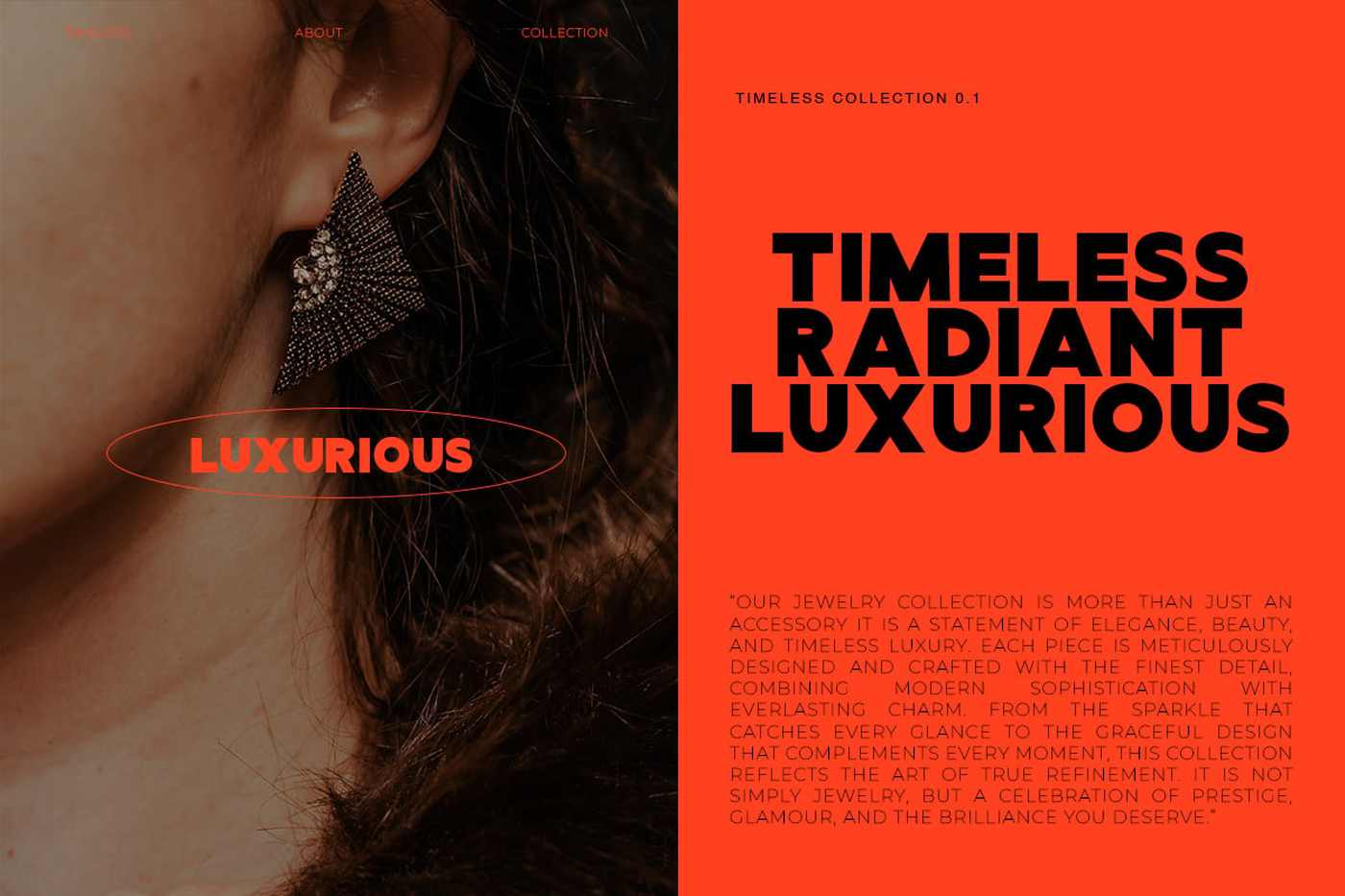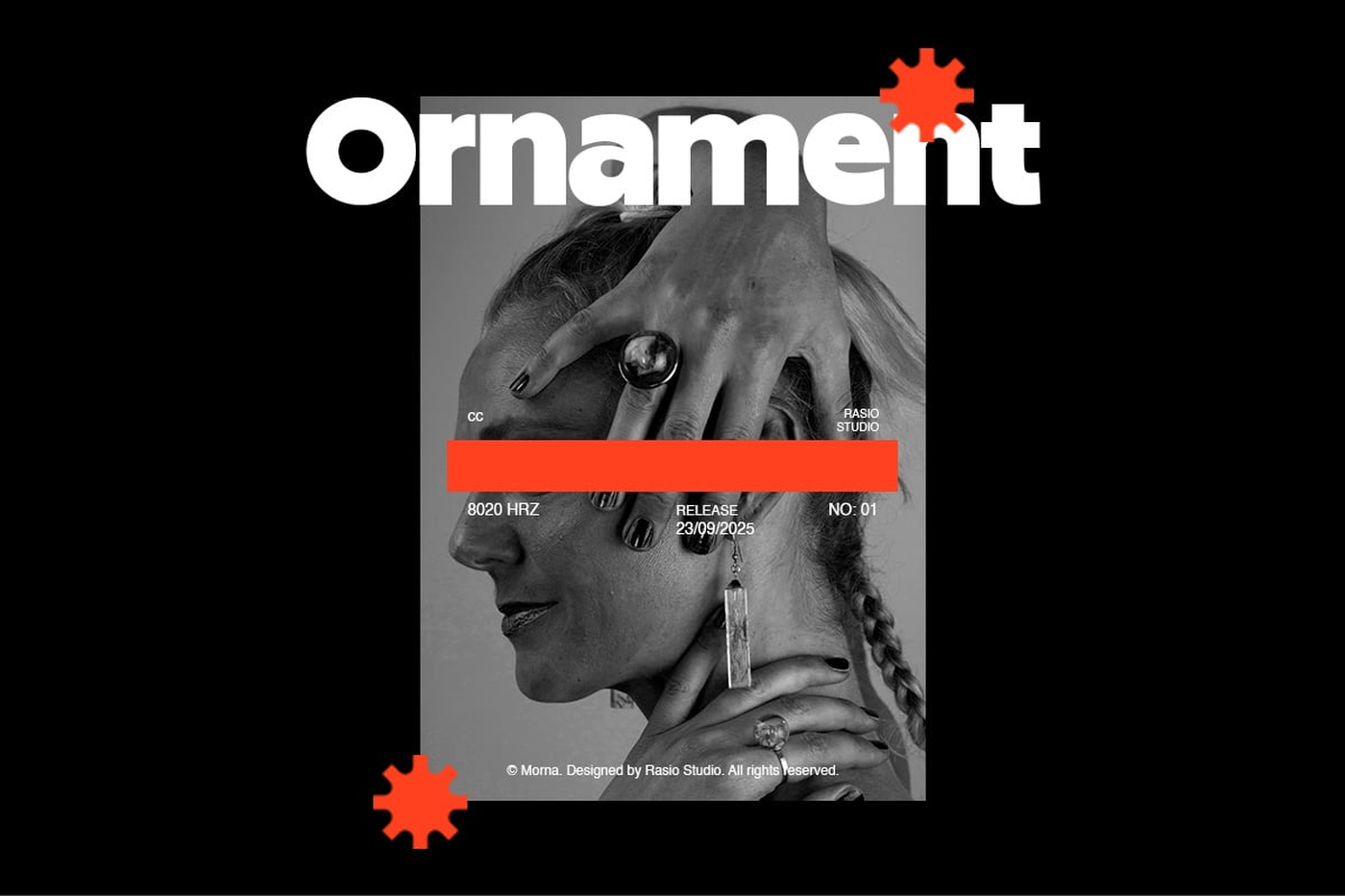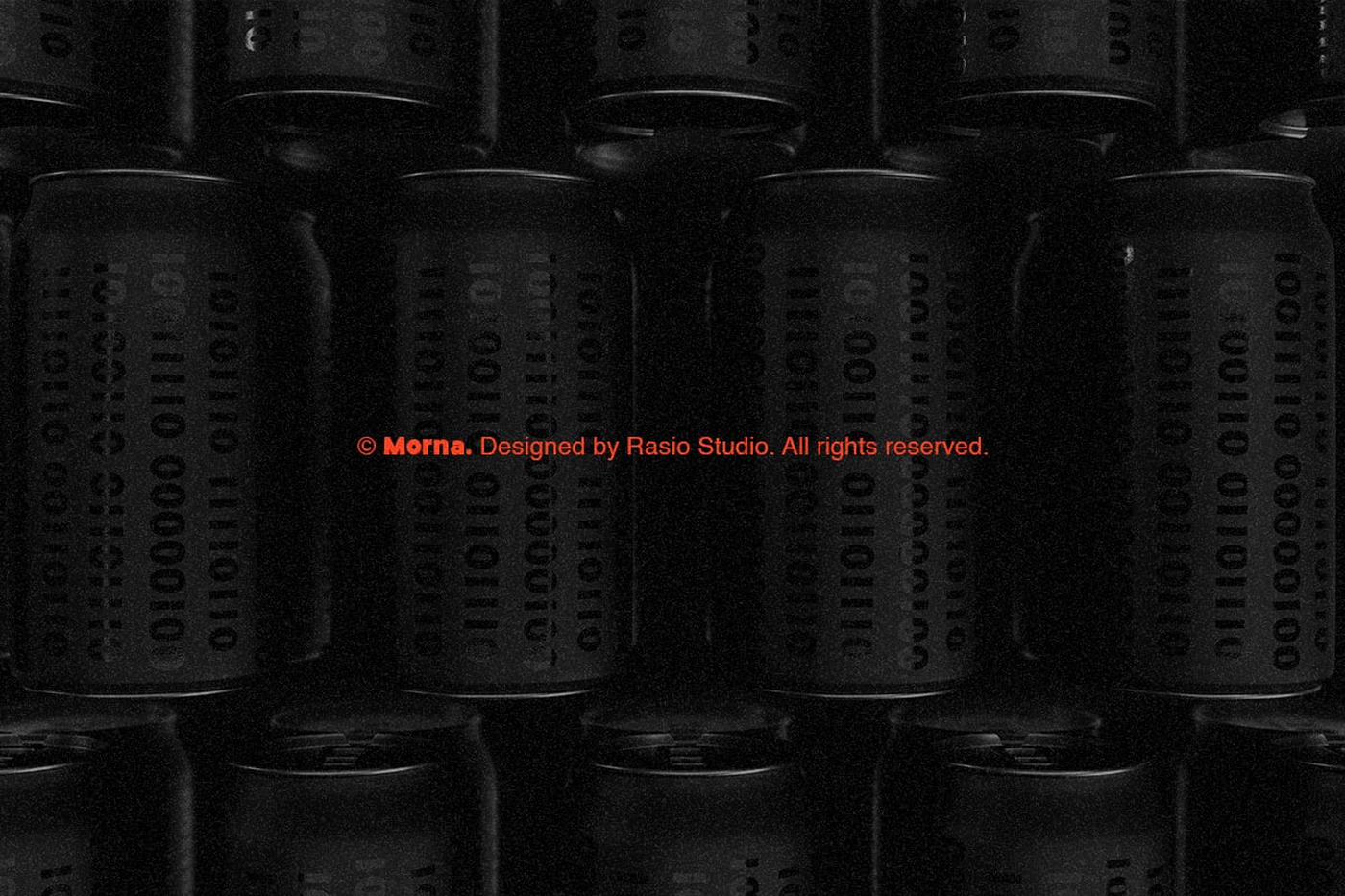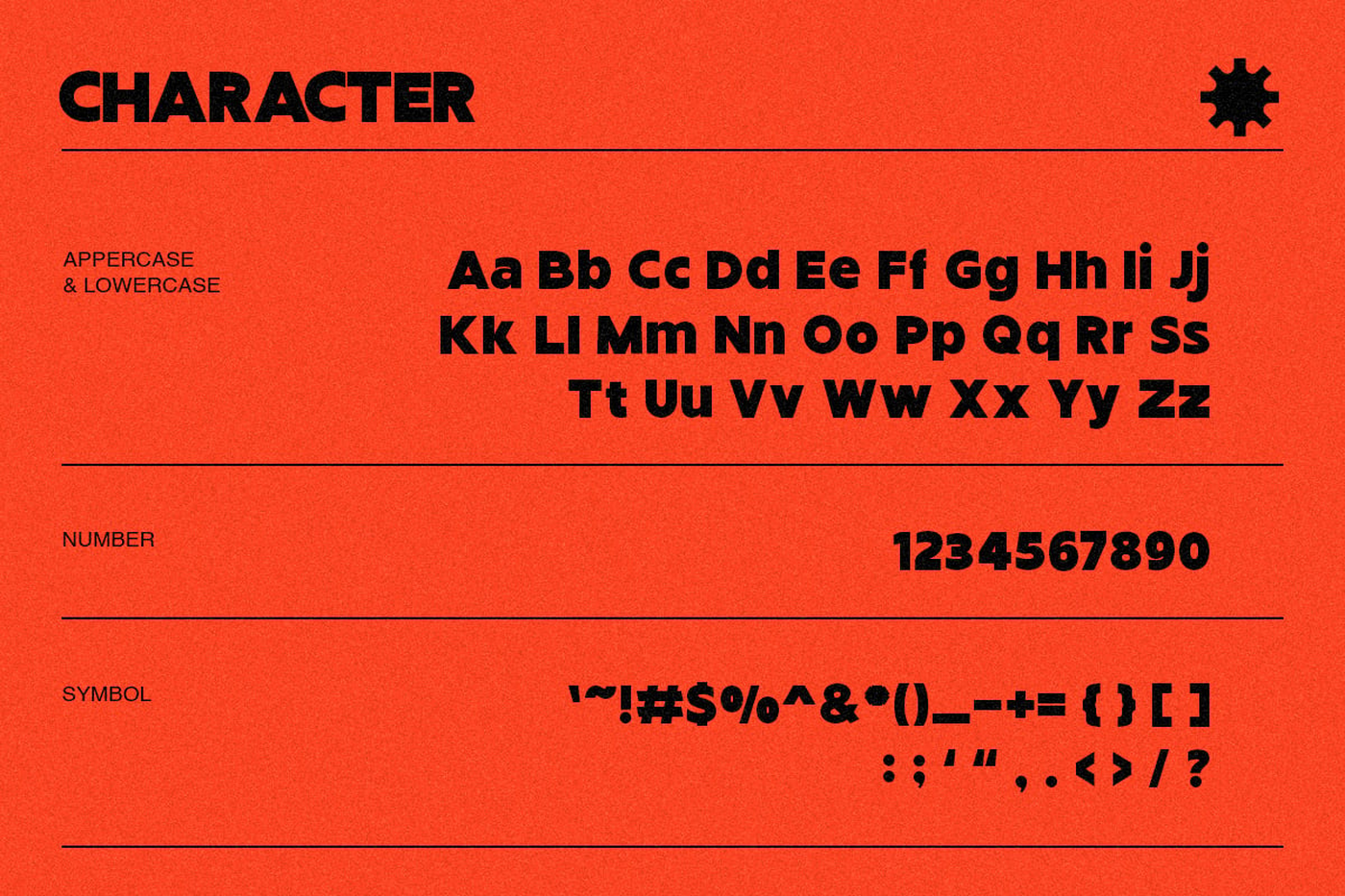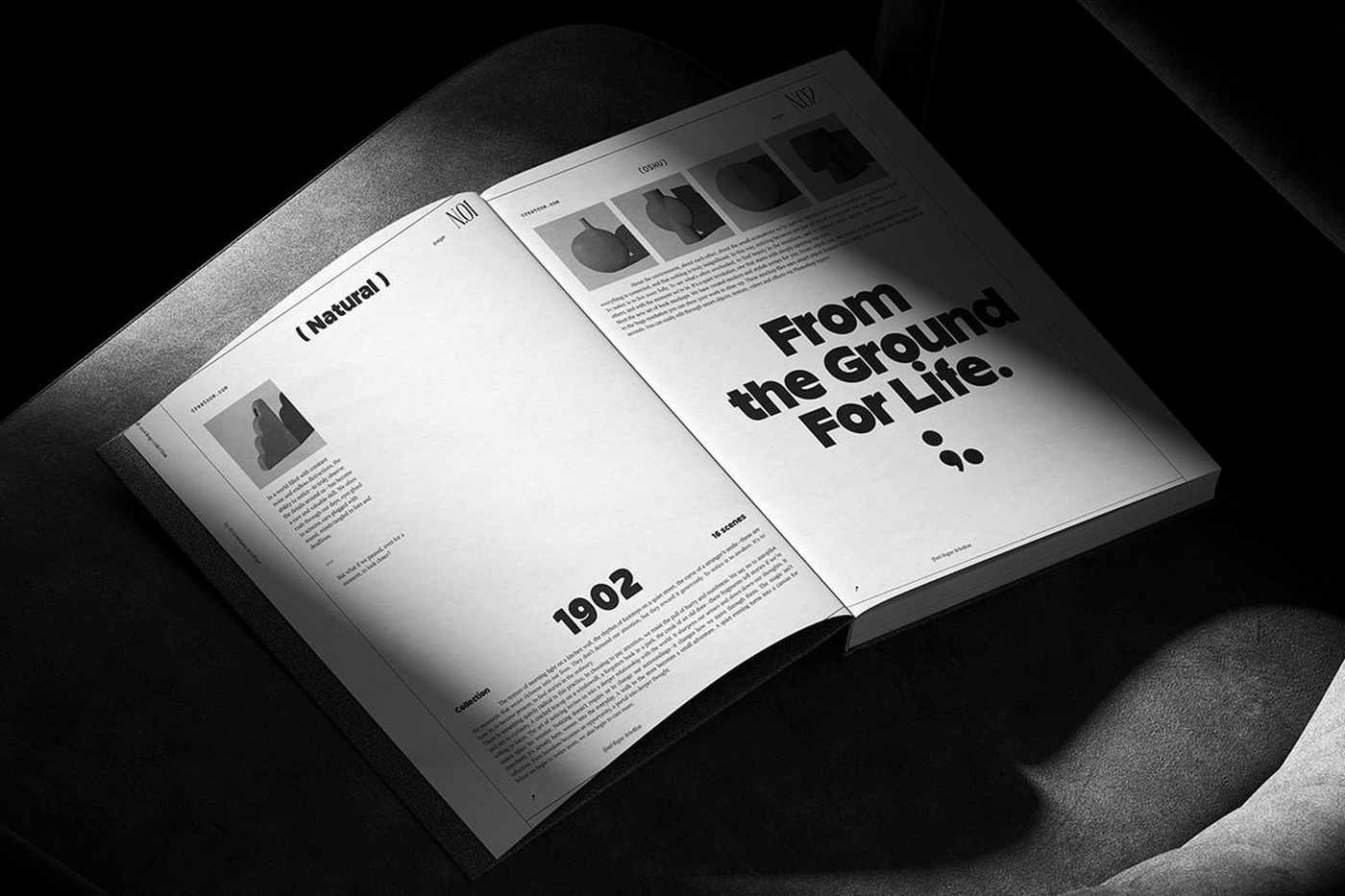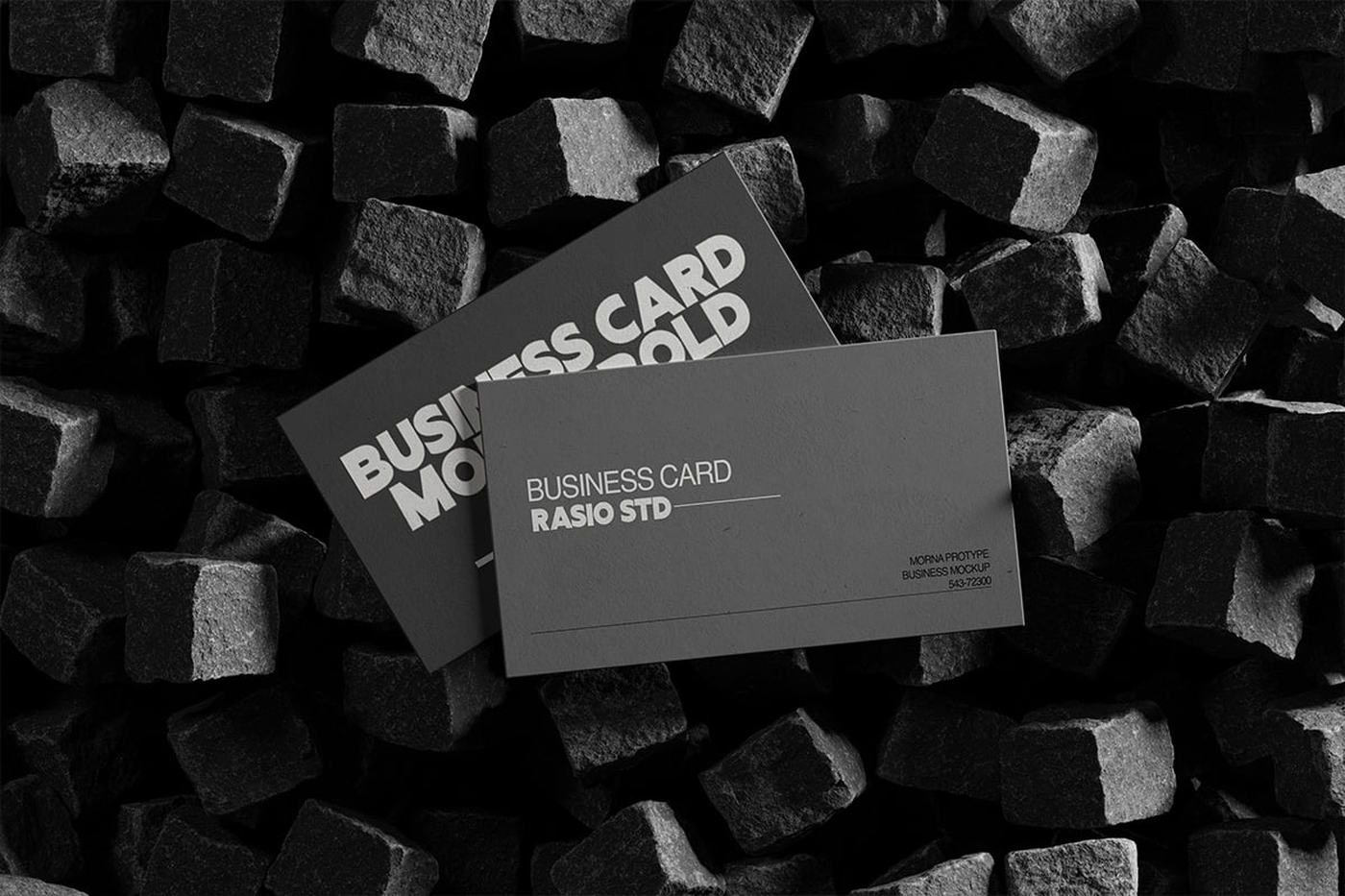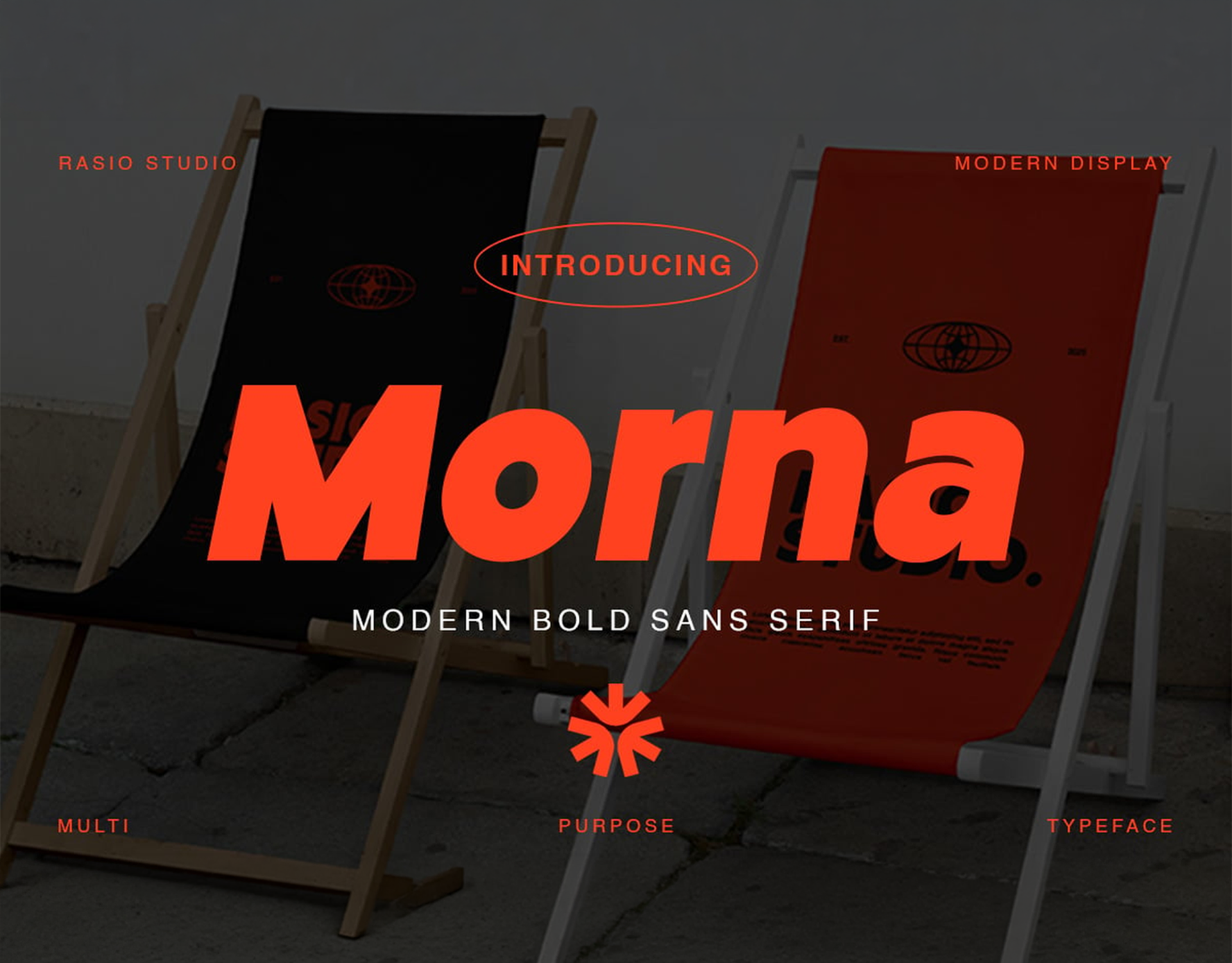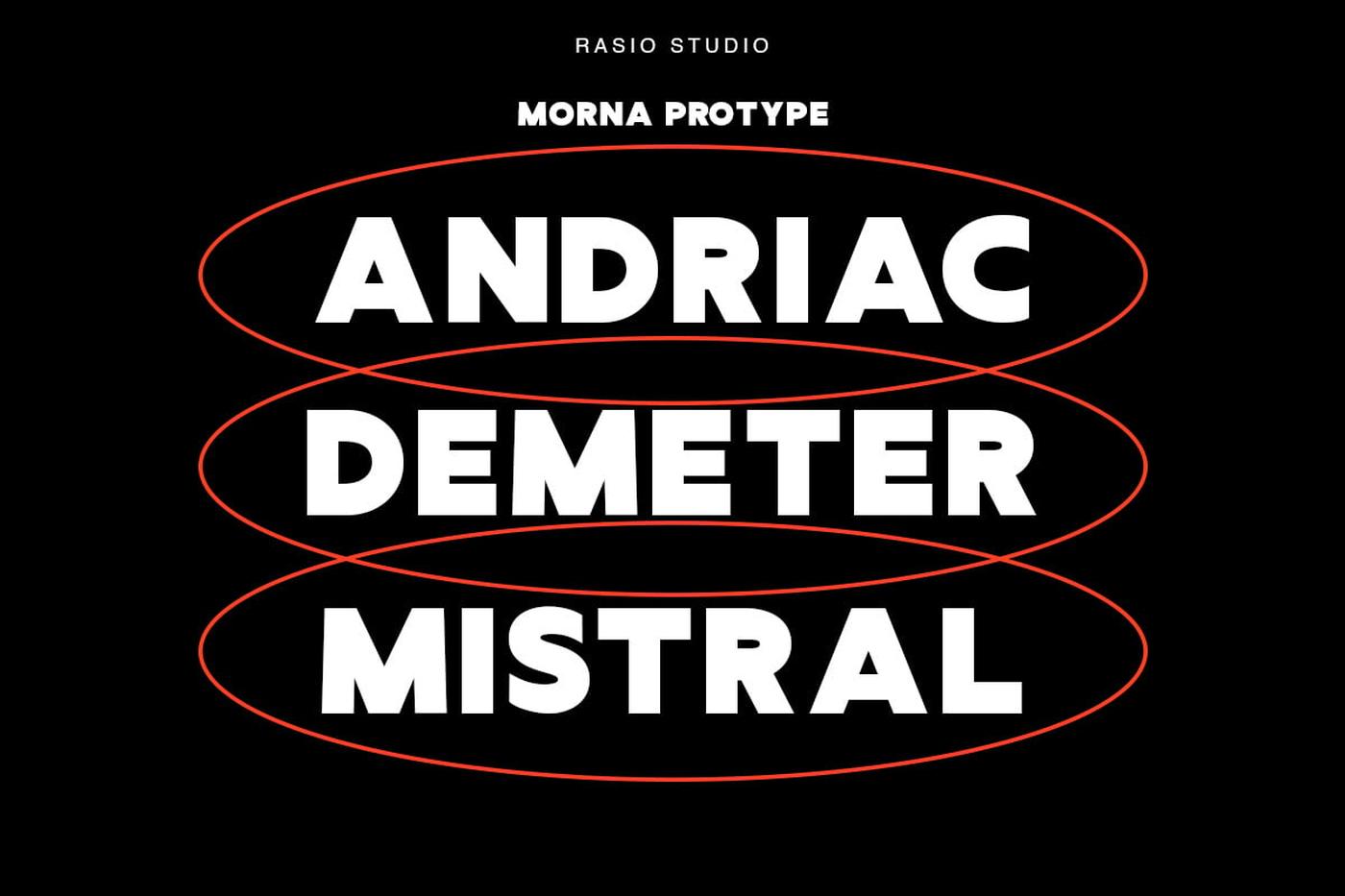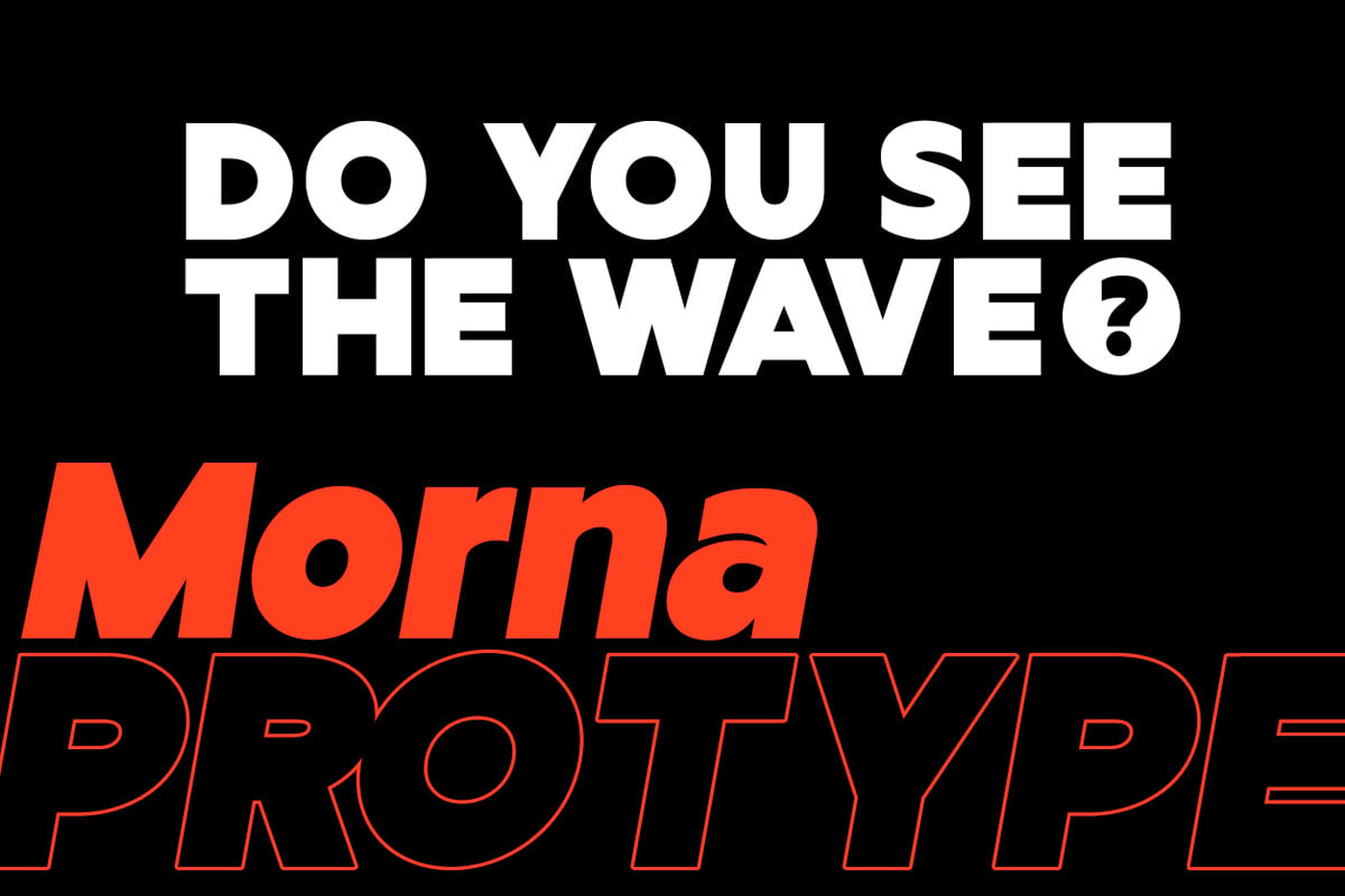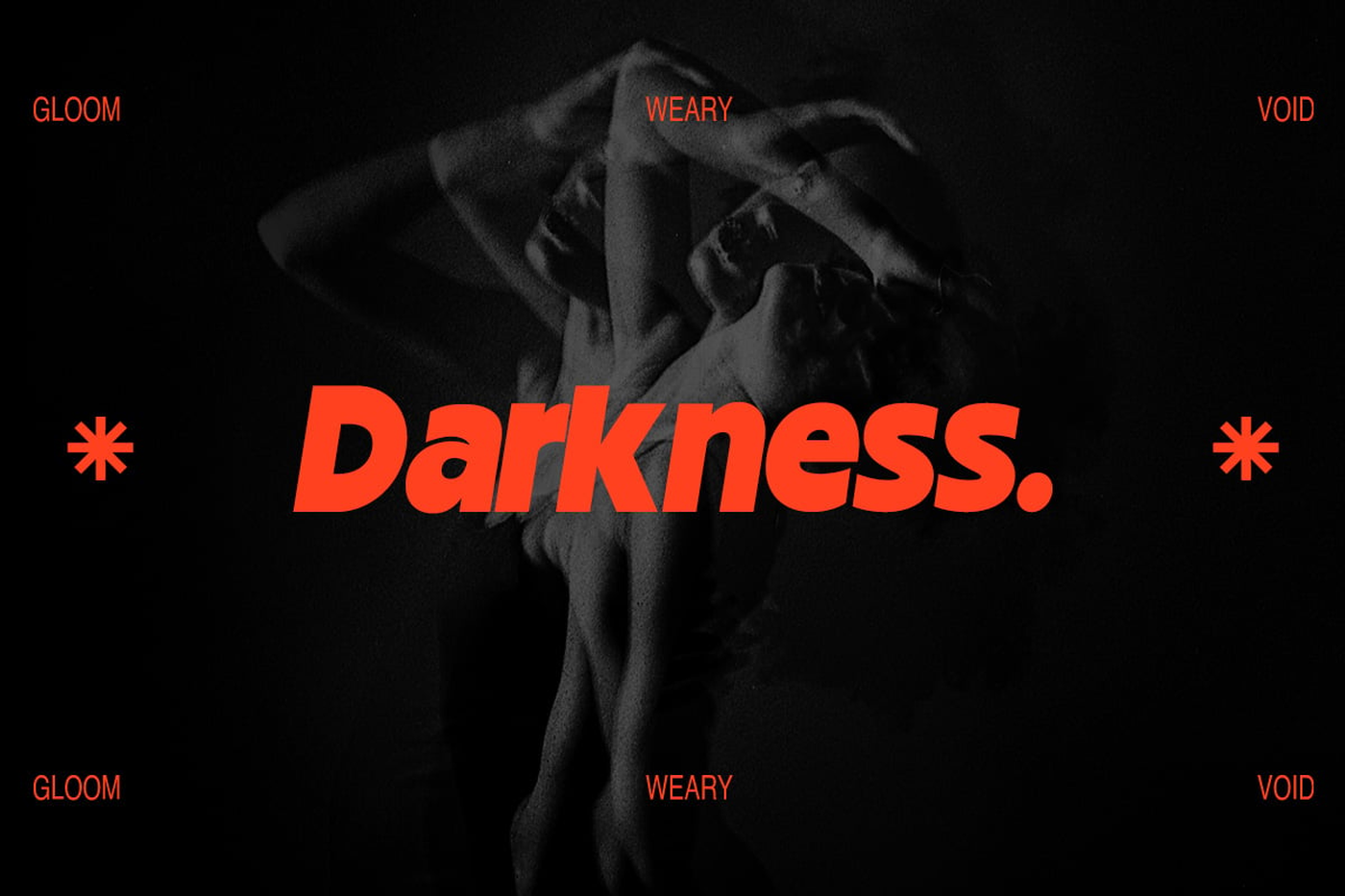
Morna - Bold Sans Serif Font
Morna Bold Sans Serif Font is a striking typeface with strong, confident letterforms. Its bold weight and clean geometry deliver a powerful modern look, ideal for impactful titles and stylish branding. The font provides uppercase, lowercase, numbers, punctuation, and comes in both Normal and Italic styles for flexible use. Morna brings clarity, bold character, and professional presence to a wide range of design projects. Relevance and Use Cases is perfect for modern branding, bold headlines, corporate identity, fashion magazines, advertising posters, web banners, social media graphics, editorial layouts, startup branding, packaging design, tech presentations, lifestyle promotions, and professional marketing materials.